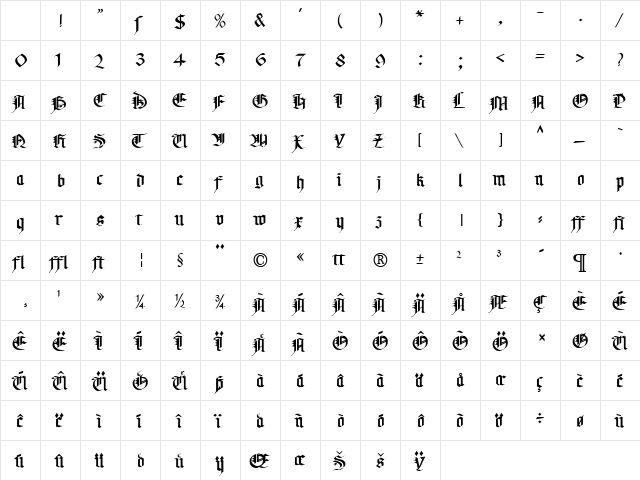
Complete MA Gotic Normal glyph index. Displaying only characters natively supported by MA Gotic Normal font.
MA Gotic is a composed and adaptable typeface that performs quietly and consistently across a wide range of design contexts.